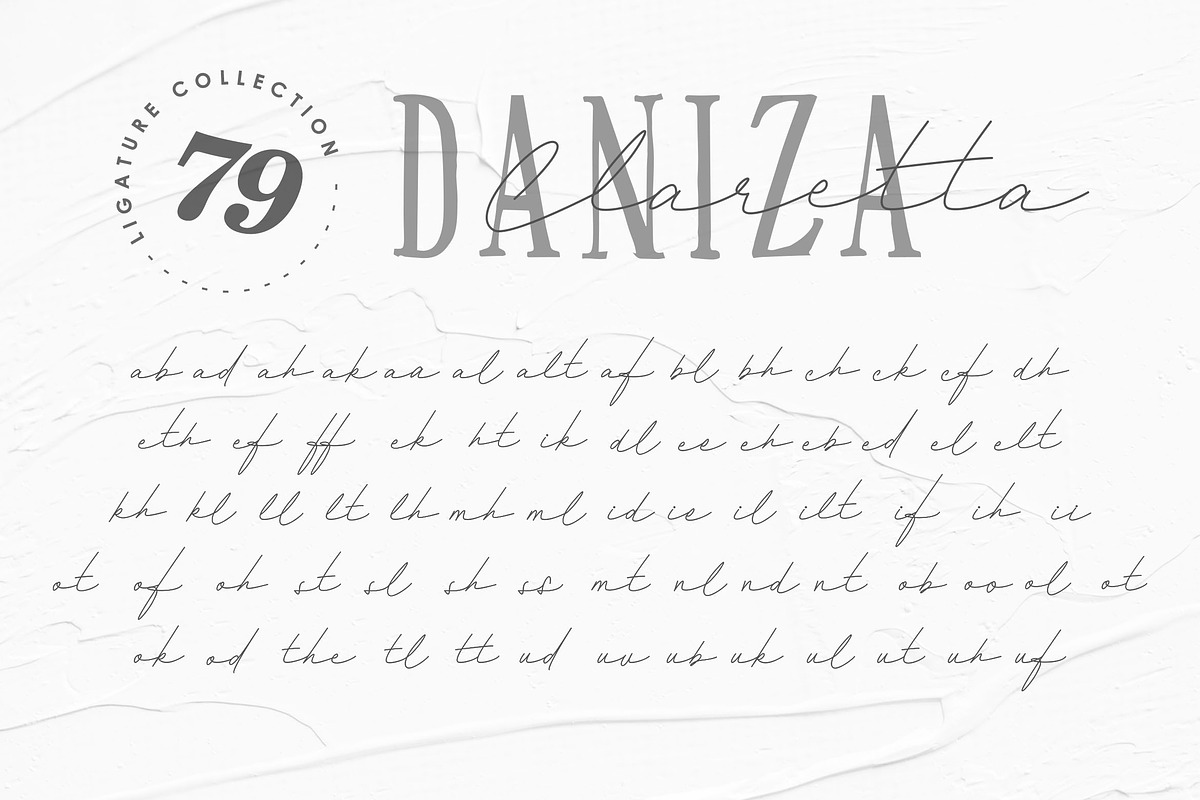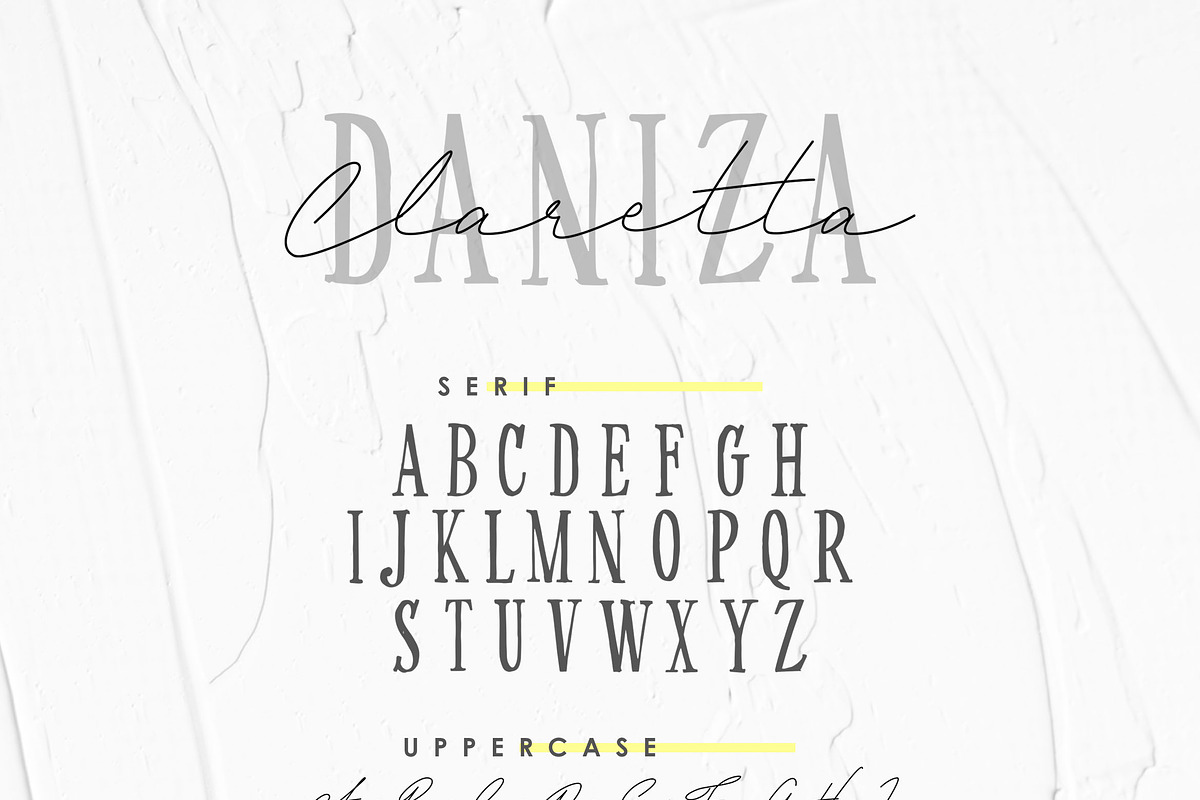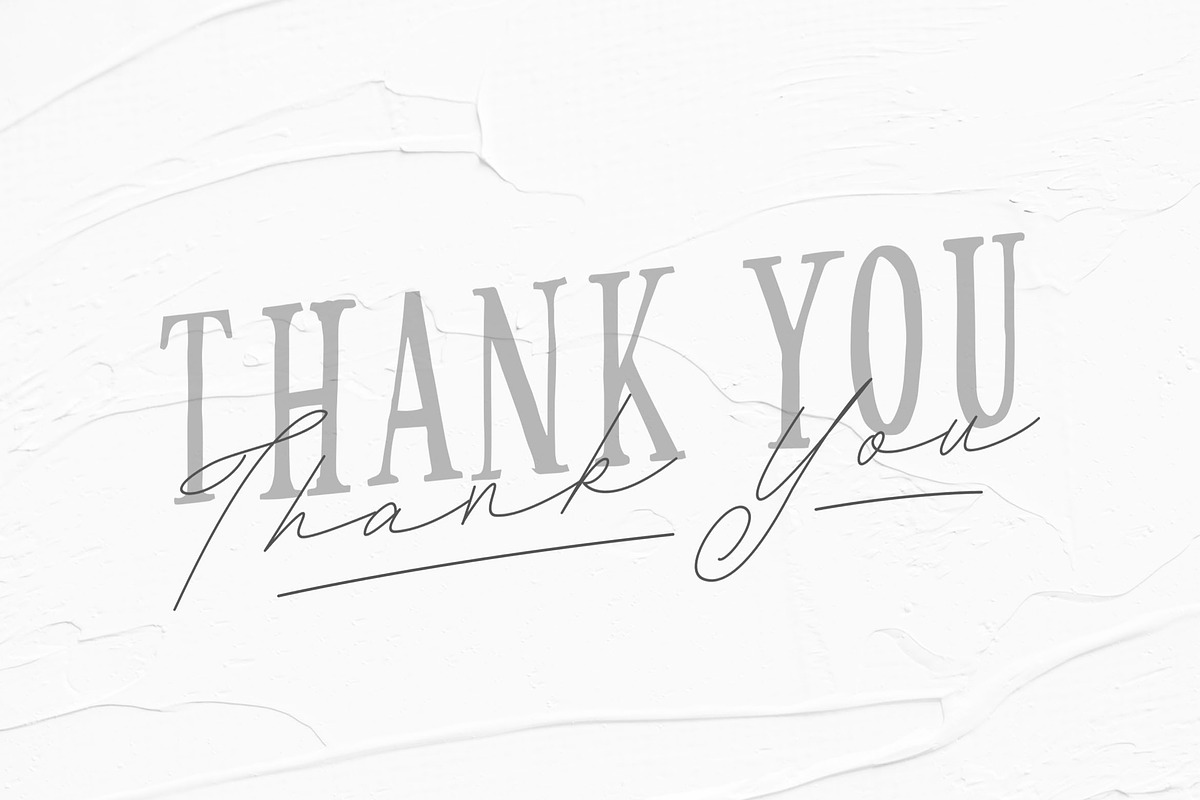
Daniza Claretta - Serif and Signatur
"Daniza Claretta" is a font display that is made by hand, inspired by classic posters.
comes with uppercase, lowercase, numerals, punctuations and so many variations on each character include OpenType alternates, common ligatures and also additional swash to let you customize your designs. Perfect to use for Logotype, Letterhead, Poster, Apparel Design, Label and etc.
- Contextual Alternates
- All Alternates